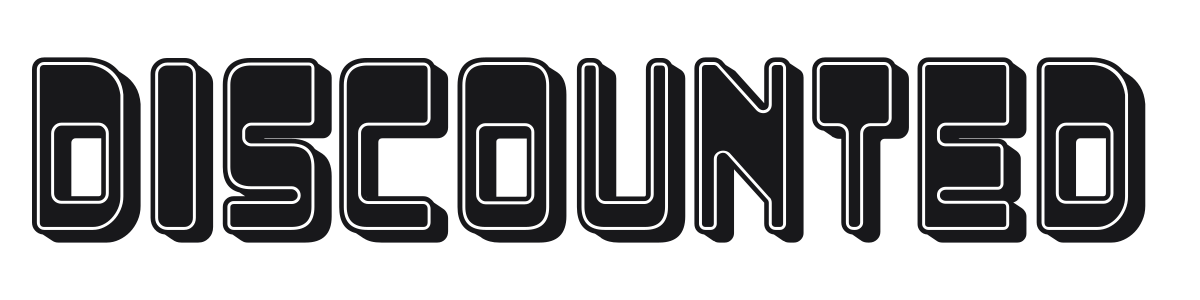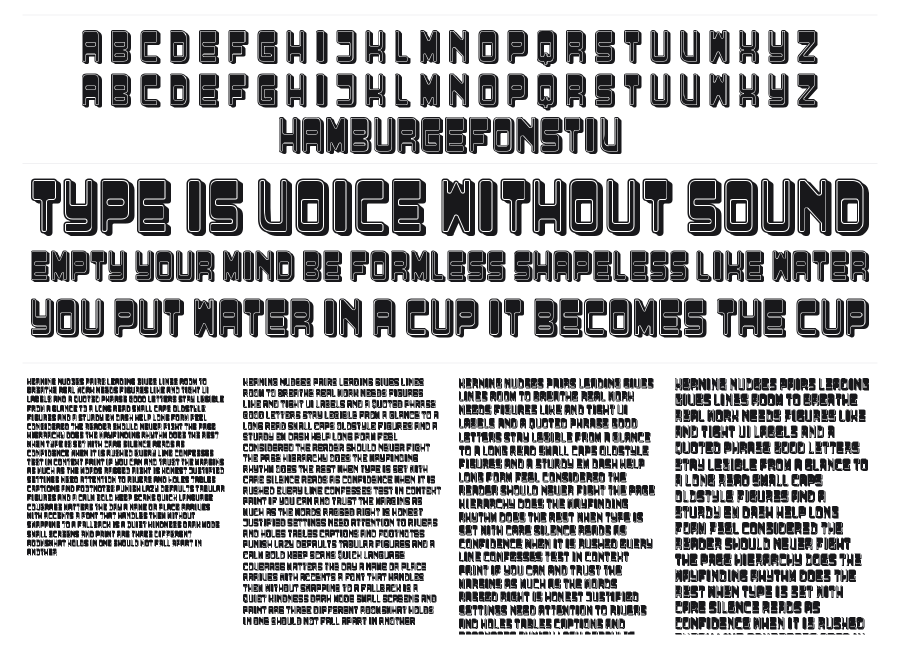
Discounted
Discounted is a chunky rounded block display font with a bold inline outline effect that gives each letter a layered, engraved look. The heavy condensed proportions and deeply rounded corners pull strongly from 1970s display typography, that era of thick rounded lettering found on game show graphics and fast-food signage. It hits hard at large sizes and carries a retro pop energy that's hard to fake.